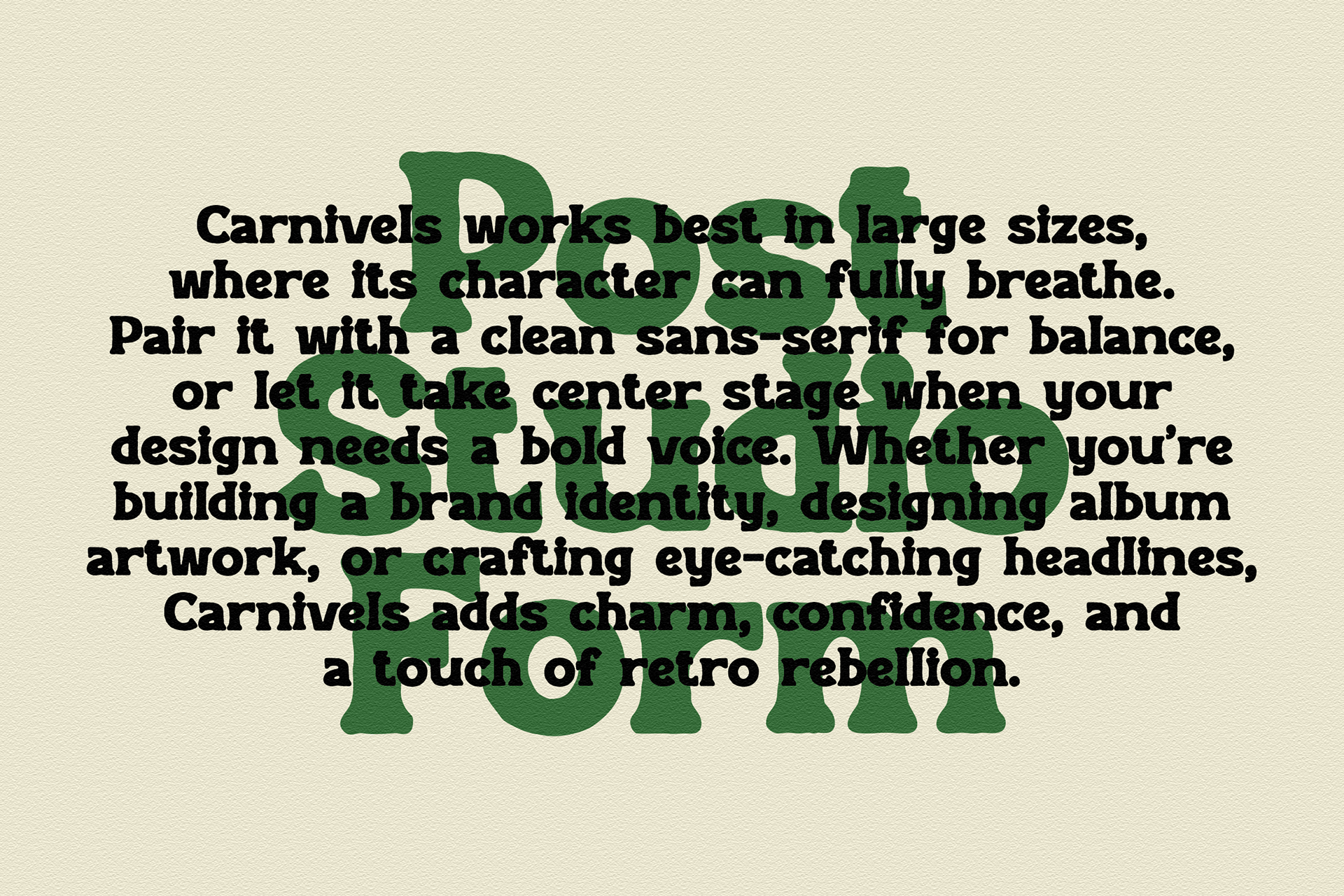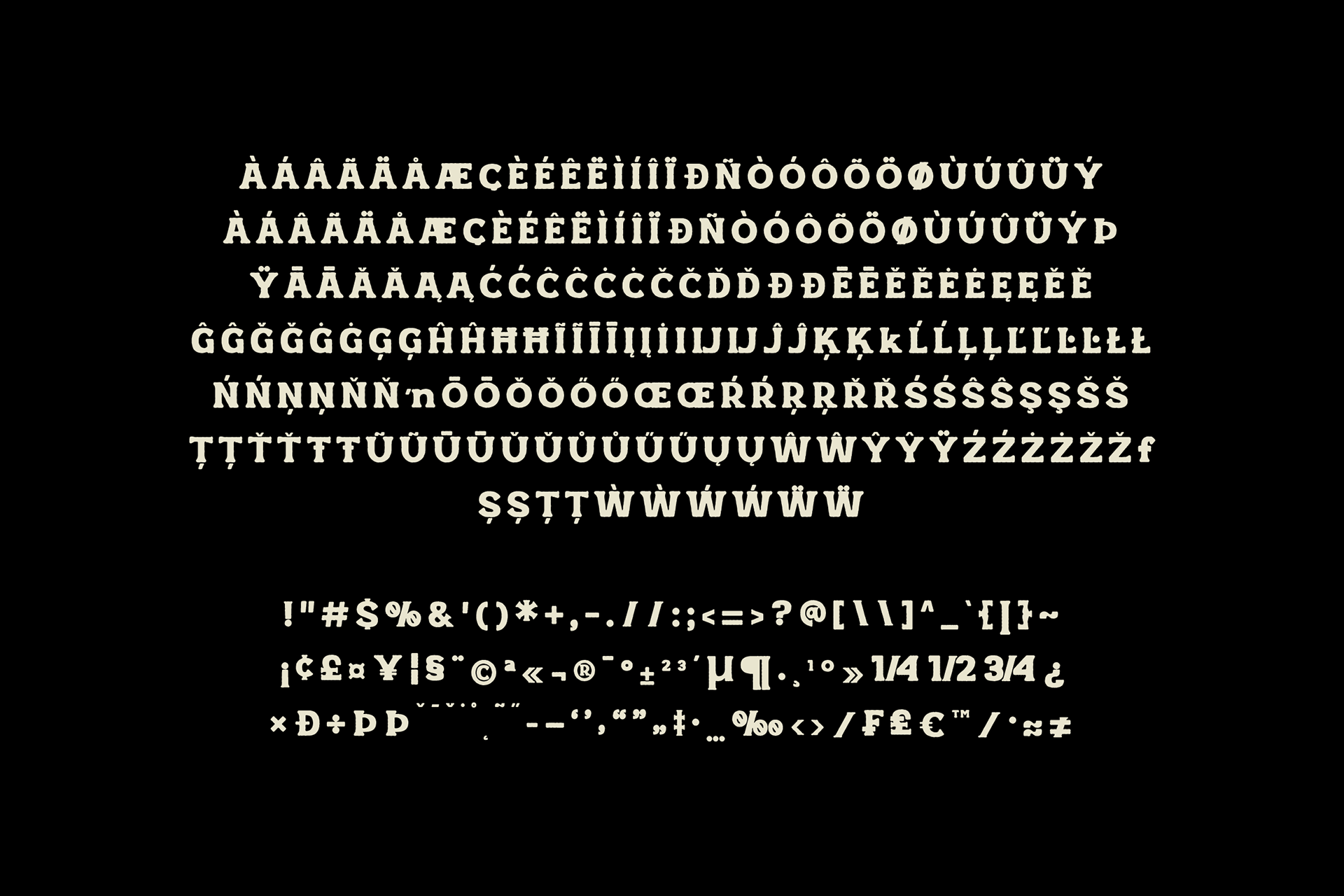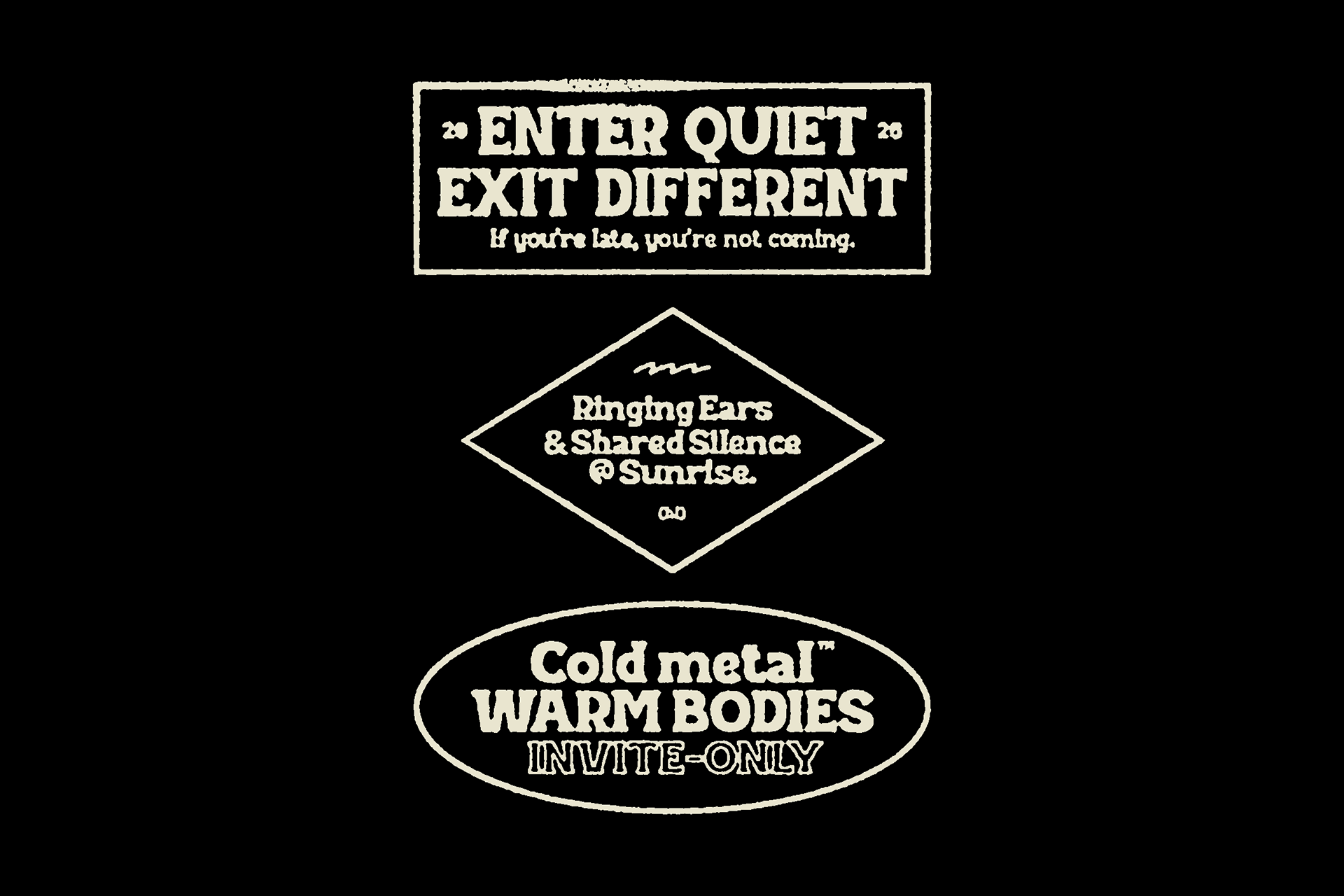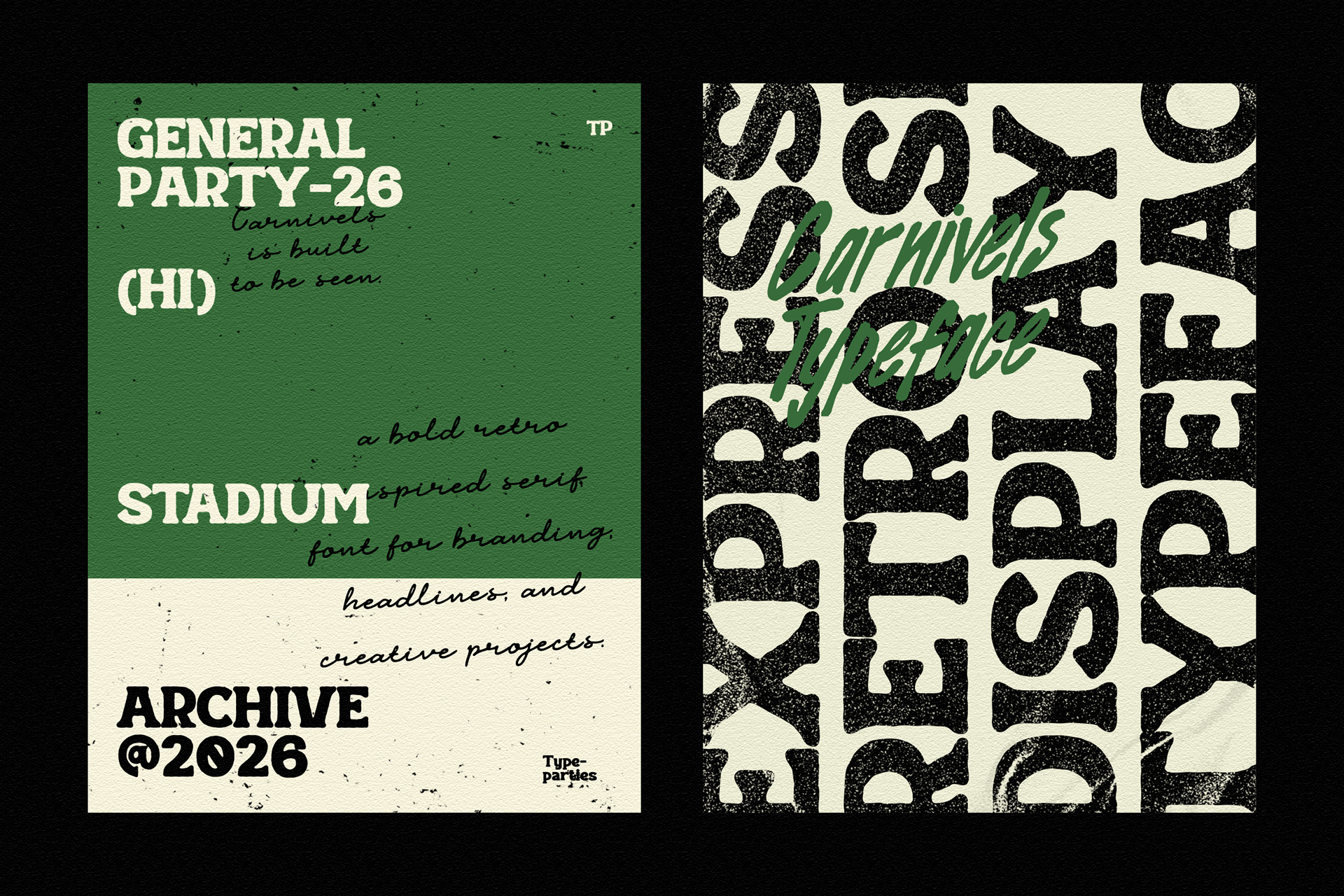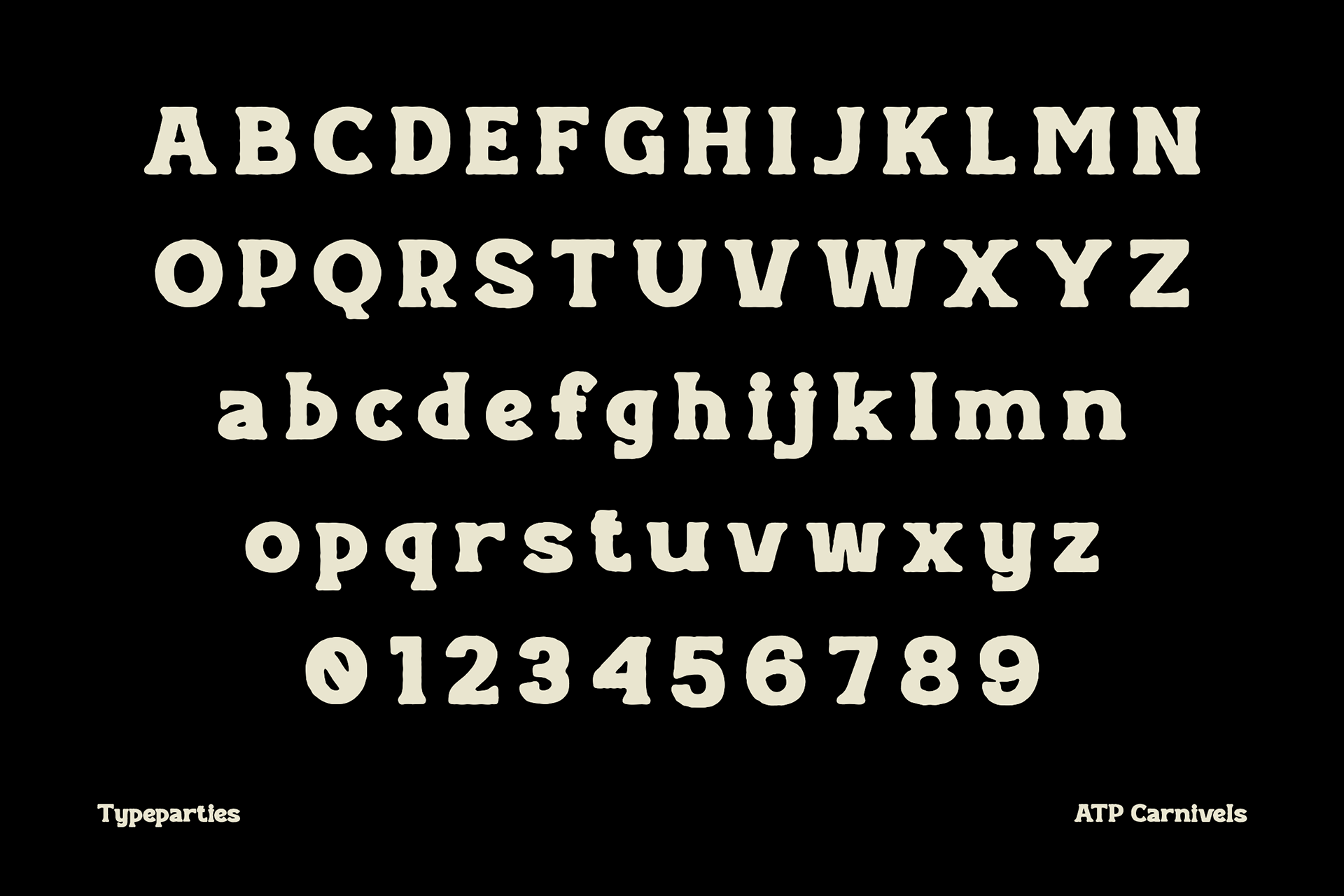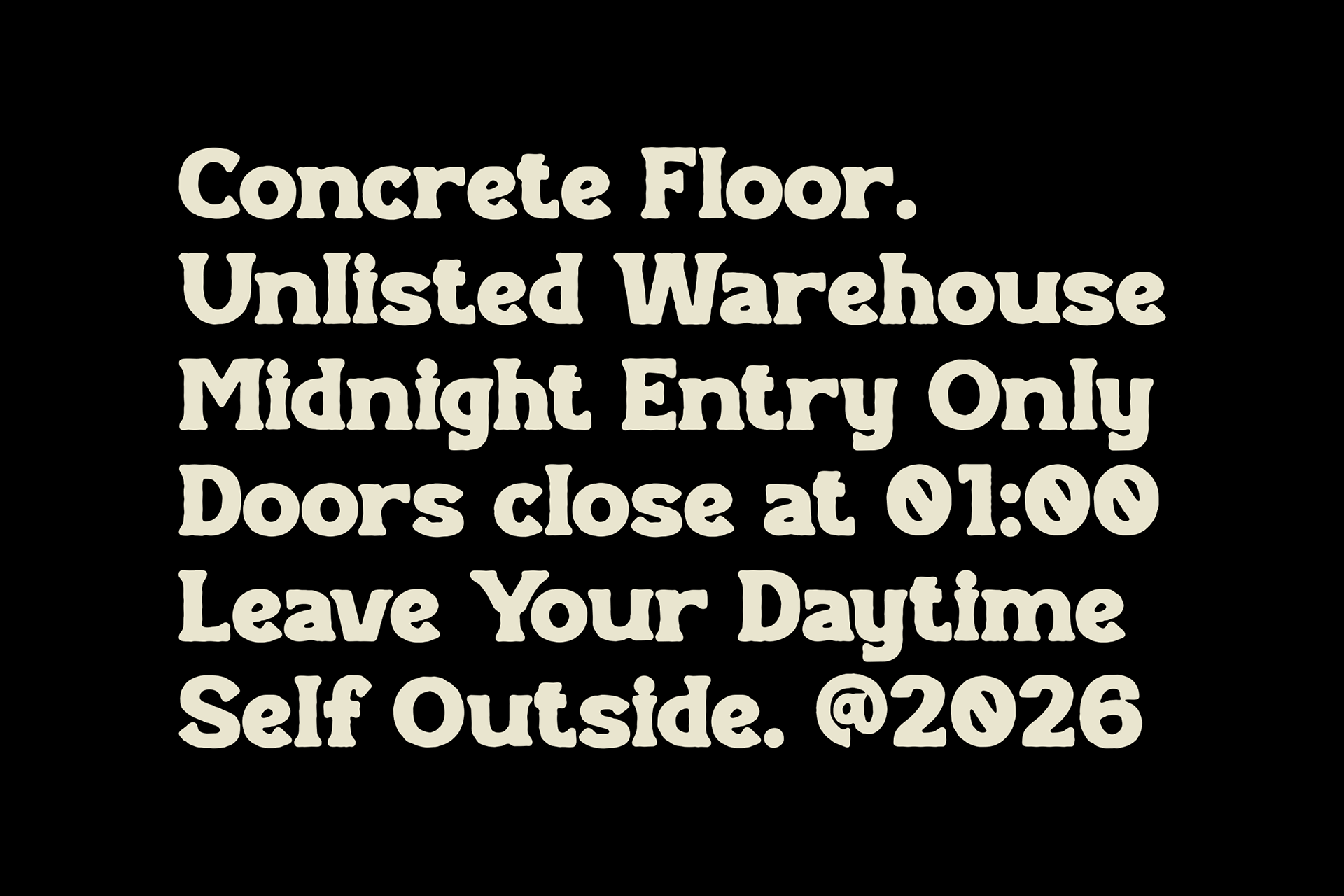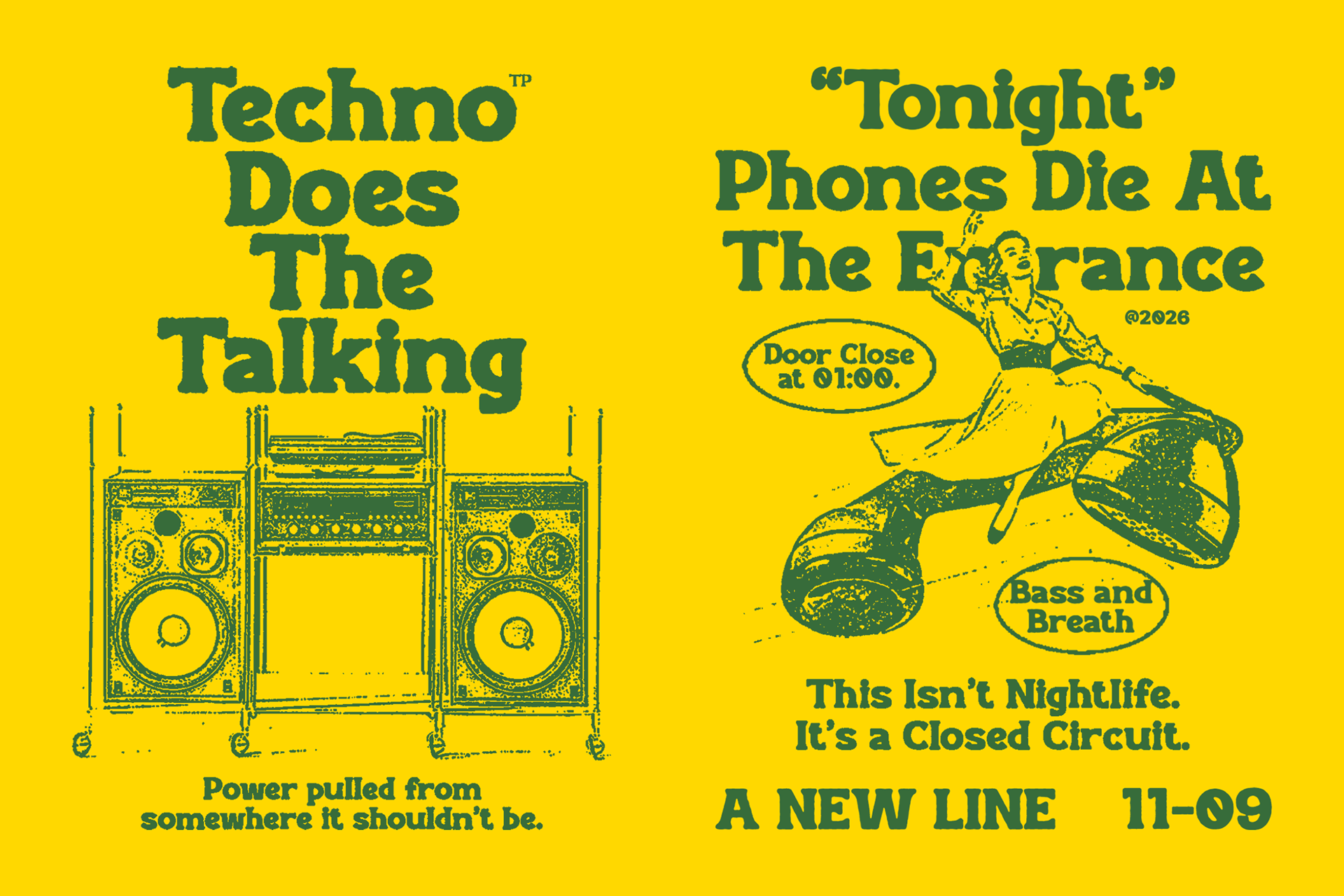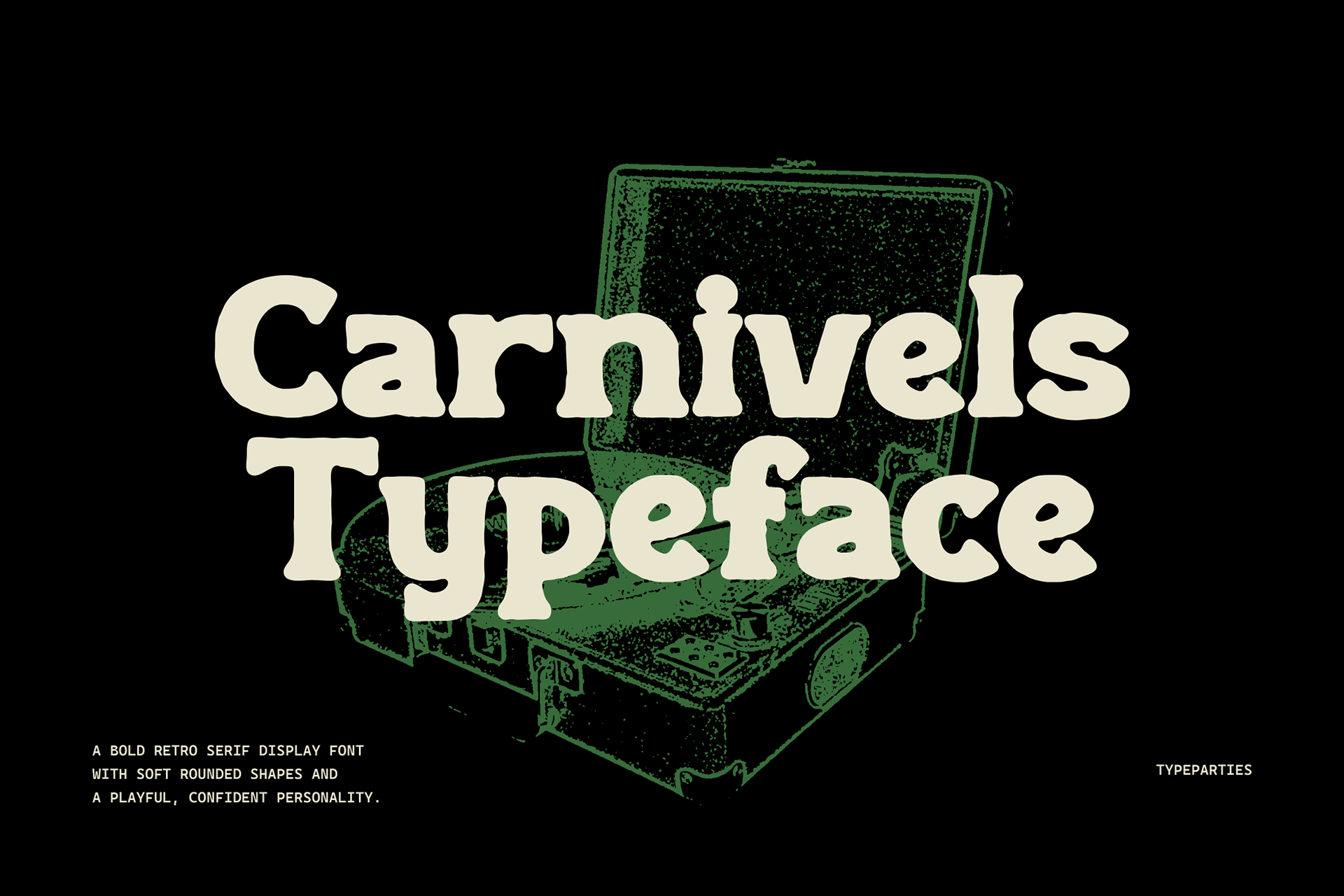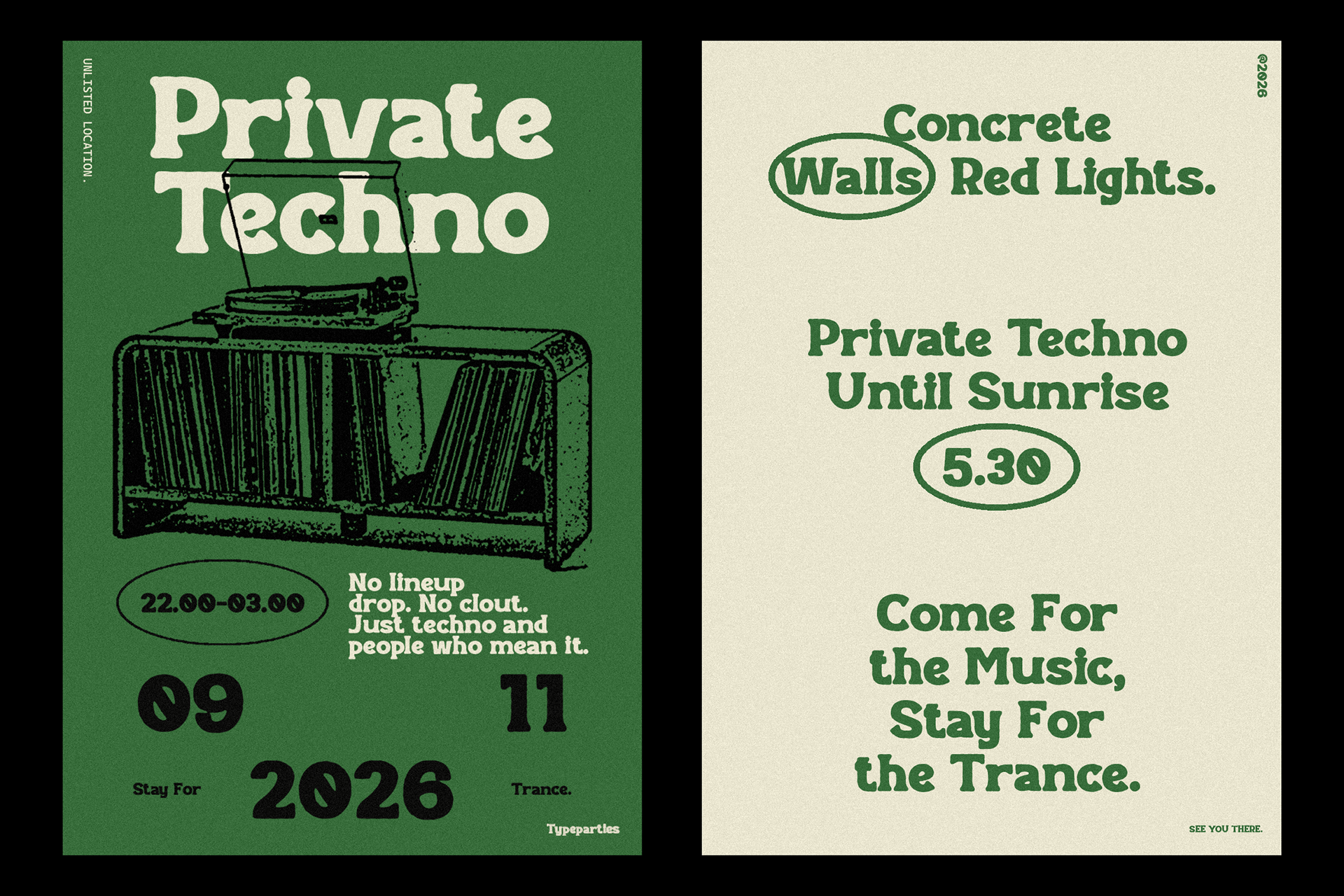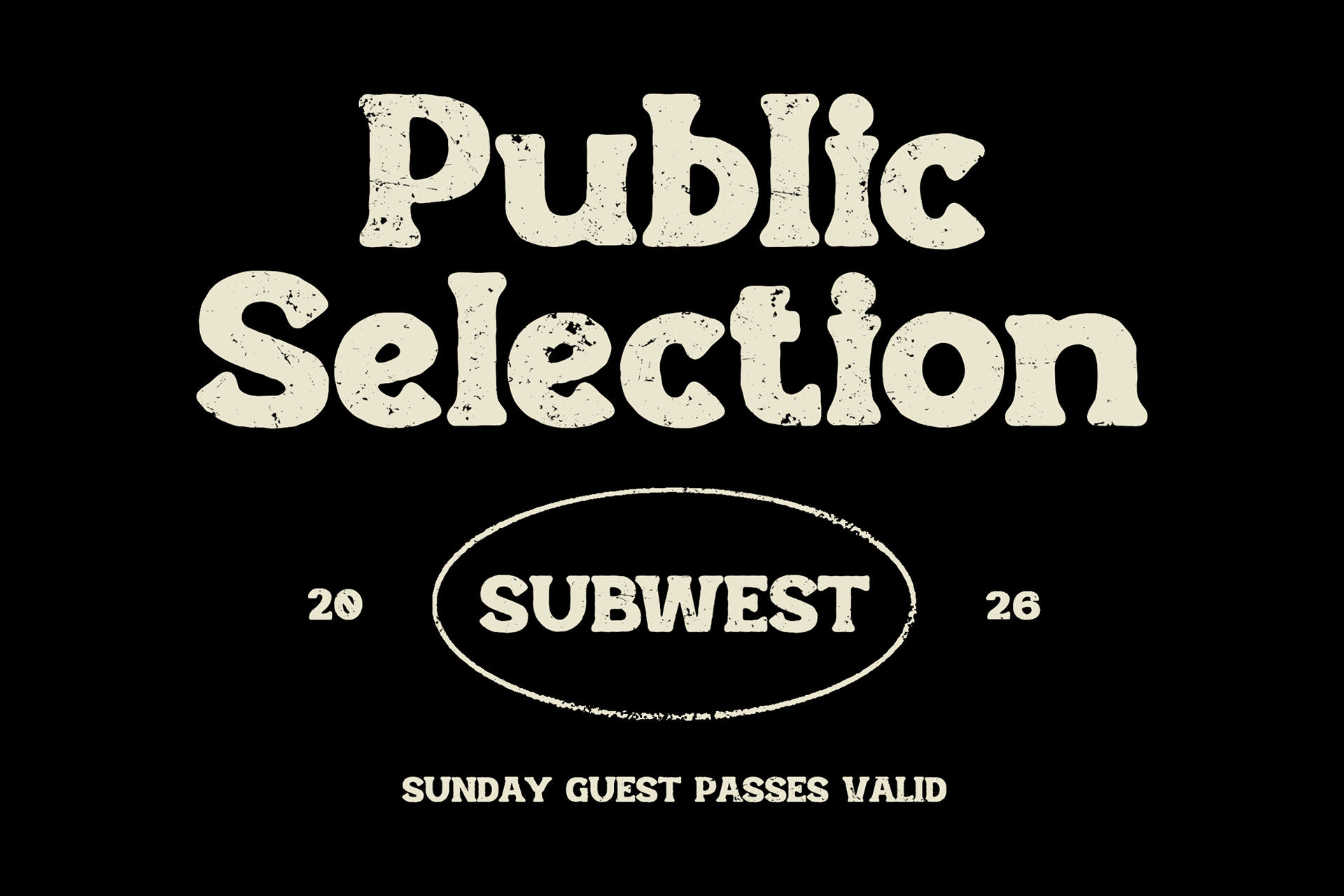
Carnivels is a bold retro serif display font designed for modern branding and expressive visual work. With soft rounded serifs and confident letterforms, Carnivels blends vintage inspiration with a contemporary feel, making it easy to use across a wide range of creative projects.
This font is ideal for logos, headlines, editorial layouts, posters, packaging, and social media graphics. Its chunky shapes and low contrast strokes give designs a warm and approachable personality while staying bold and professional. Carnivels performs best at larger sizes where its character and details can fully stand out.
Best used for
Branding, logos, headlines, editorial design, posters, packaging, album covers, and digital graphics